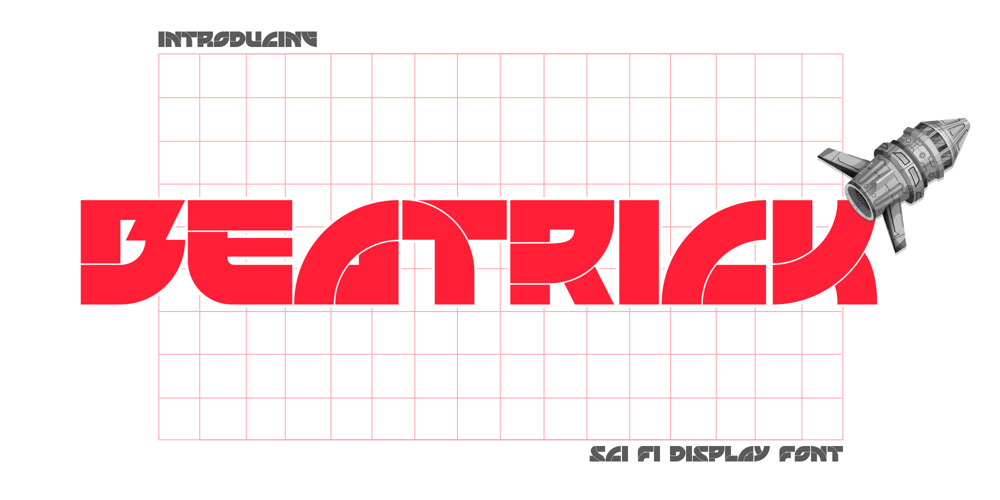
Beatrick Font Family was designed by Muhammad Afif Ersya and published by Mevstory Studio. Beatrick contains 1 styles and family package options. Beatrick created by Muhammad Afif Ersya is a futuristic modern font that features upper & lowercase characters, multilingual, numbers & punctuation. It’s well suited for use in the tech & gaming space for logos, titles, packaging, web design, apps & much more.